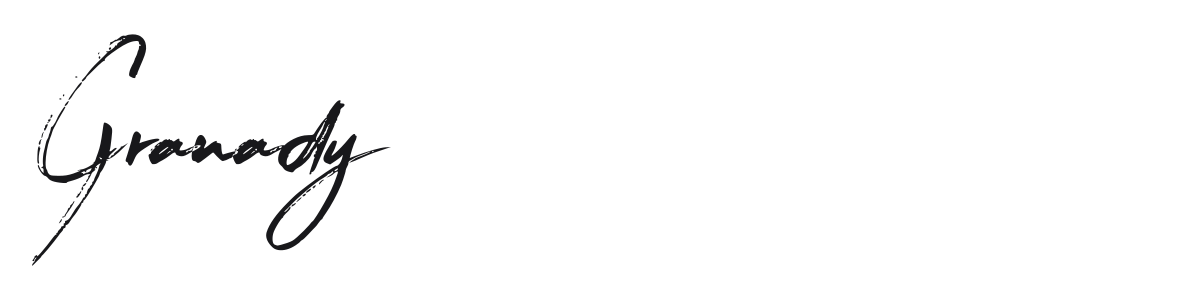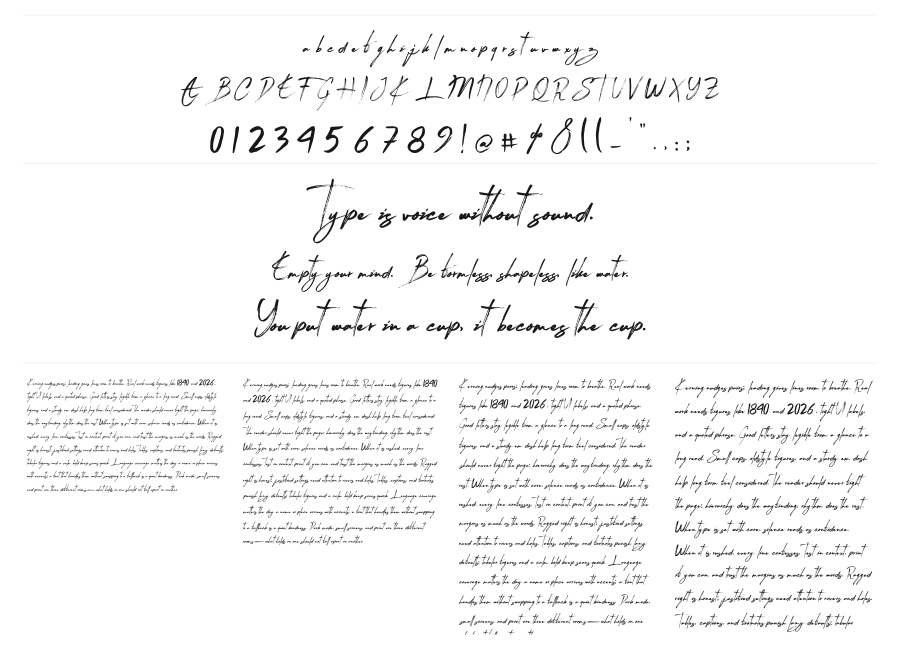
Granady
Granady is a rough brush script with a fast, loose hand and heavy dry-brush texture throughout. The frayed strokes and bristle marks give it an authentically hand-inked feel that sits somewhere between street art and editorial calligraphy. It works well wherever a design needs raw energy over polish.